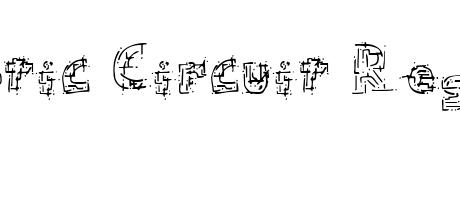
Chaotic
By Tatianna Kirkland
Chaotic Circuit Regular is a display typeface characterized by its intricate, almost circuit-board-like letterforms. Each letter is a complex network of lines and nodes, giving it a futuristic, technological feel. The strokes are irregular and deliberately imperfect, adding to the chaotic yet stylish aesthetic. It's bold and attention-grabbing, ideal for short titles or headings where impact is key.